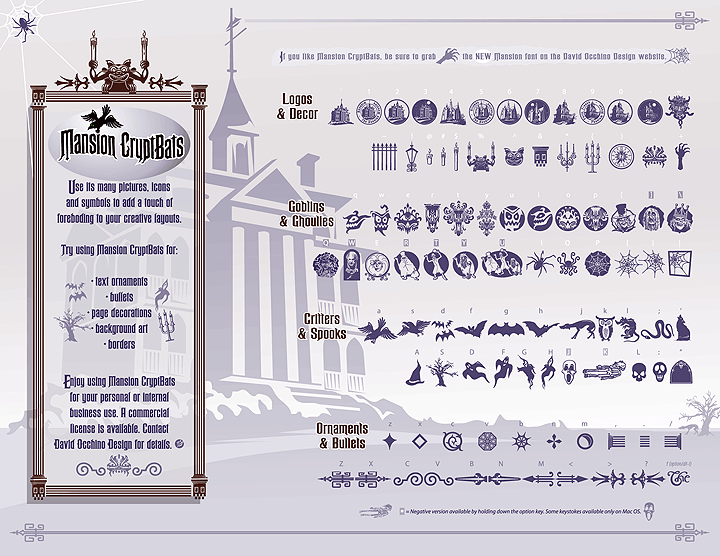
Over 100 hand-crafted pictures, icons and symbols.
Mansion CryptBats includes many pictures, symbols and icons from Disney's Haunted Mansion attraction. Use it to add a touch of foreboding to your creative layouts. Mansion CryptBats artwork was created by Marc Davis, Rolly Crump and Blaine Gibson with additional original artwork by David Occhino.